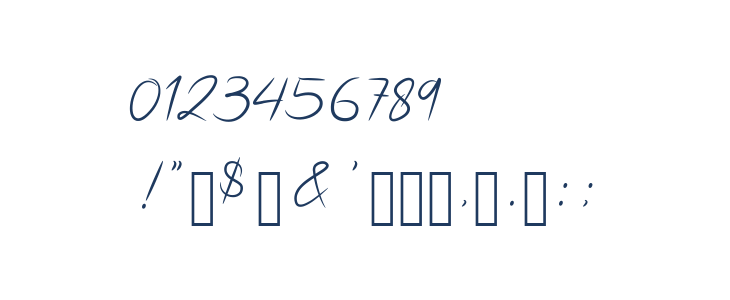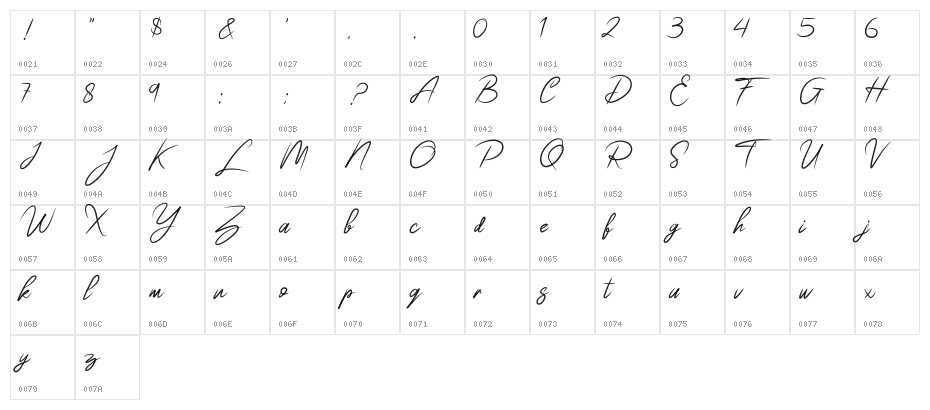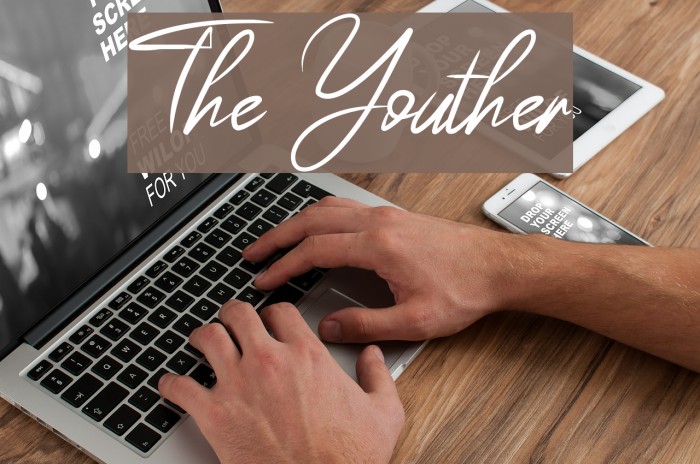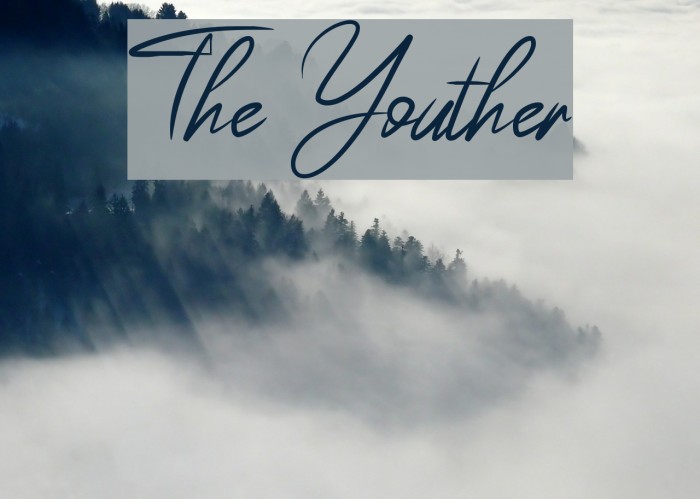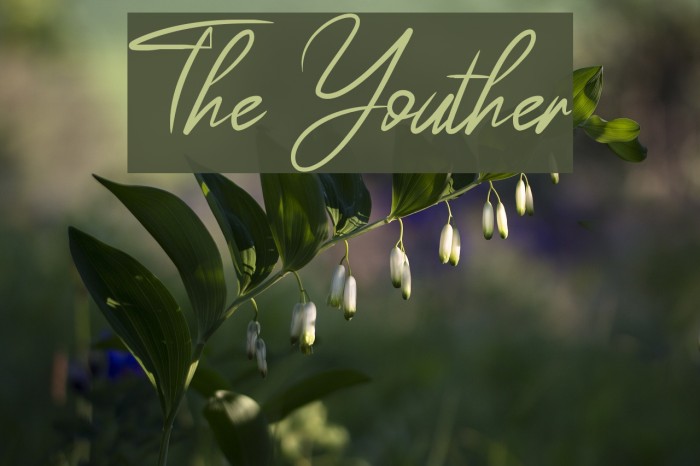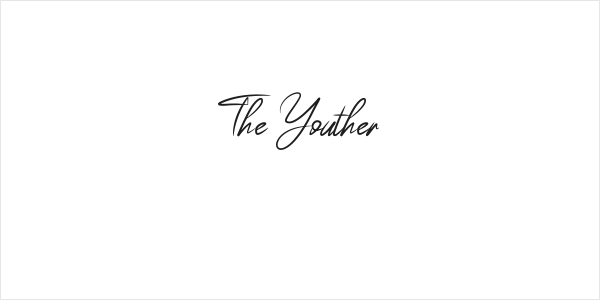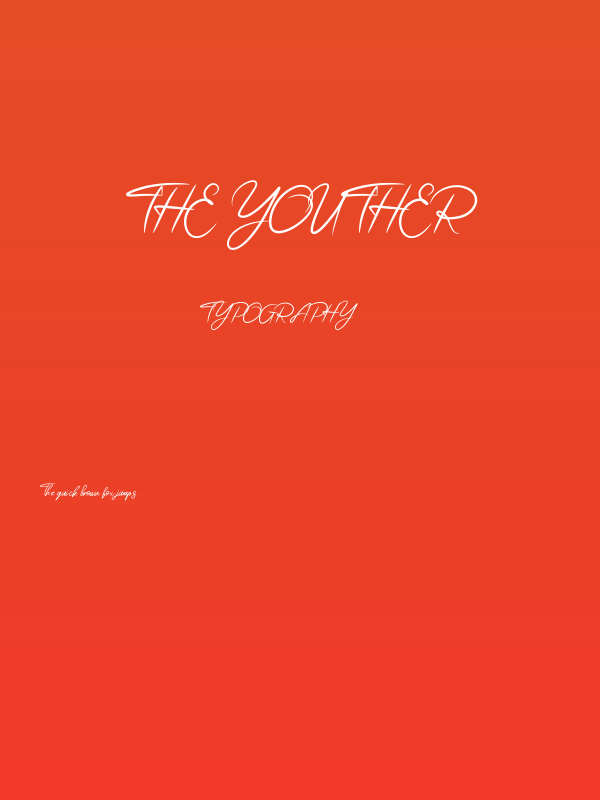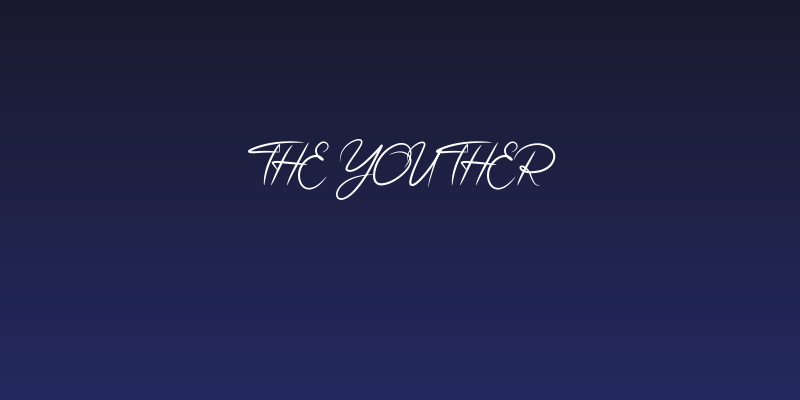
The Youther Font
The Youther Description
This font features an elegant and flowing script style, characterized by its smooth, cursive strokes and a sense of fluidity. The uppercase letters are tall and slightly slanted, giving a sense of movement and grace. The lowercase letters maintain a consistent flow, with some letters connecting seamlessly to the next. The numerals are distinct and maintain the cursive style, adding a touch of sophistication. Special characters are integrated smoothly, maintaining the overall aesthetic. This font exudes a sense of elegance and is perfect for projects that require a personal, handwritten touch.